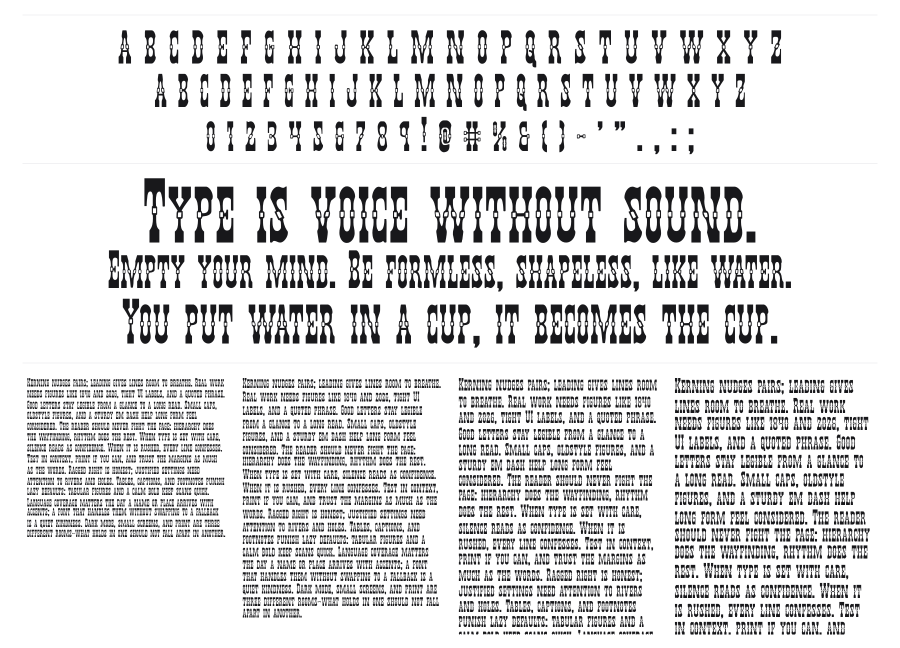
Younger Brothers
Younger Brothers is a heavy condensed display serif dripping with Wild West woodtype DNA. Thick stems slam into hairline crossbars, and small ornamental notches at stroke junctions give every character a chain-link flourish straight off a frontier circus bill. It commands attention at large sizes and has real personality in poster and title work.